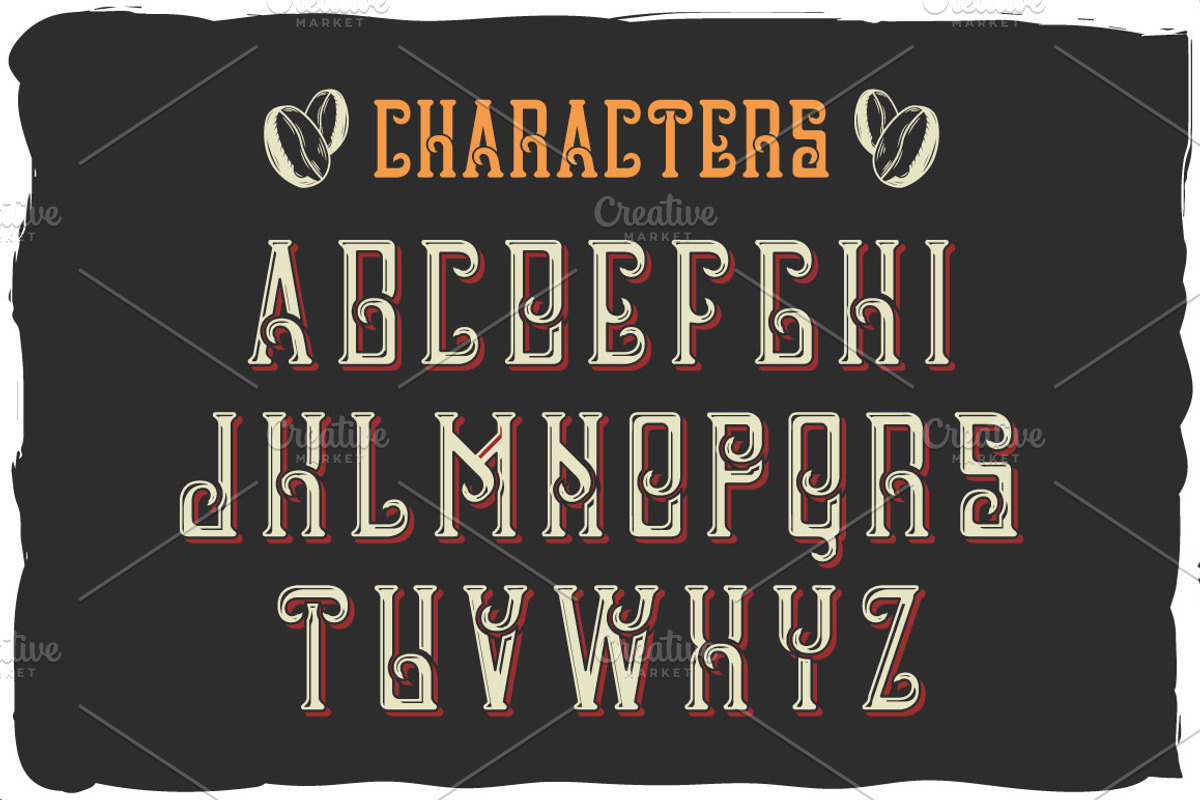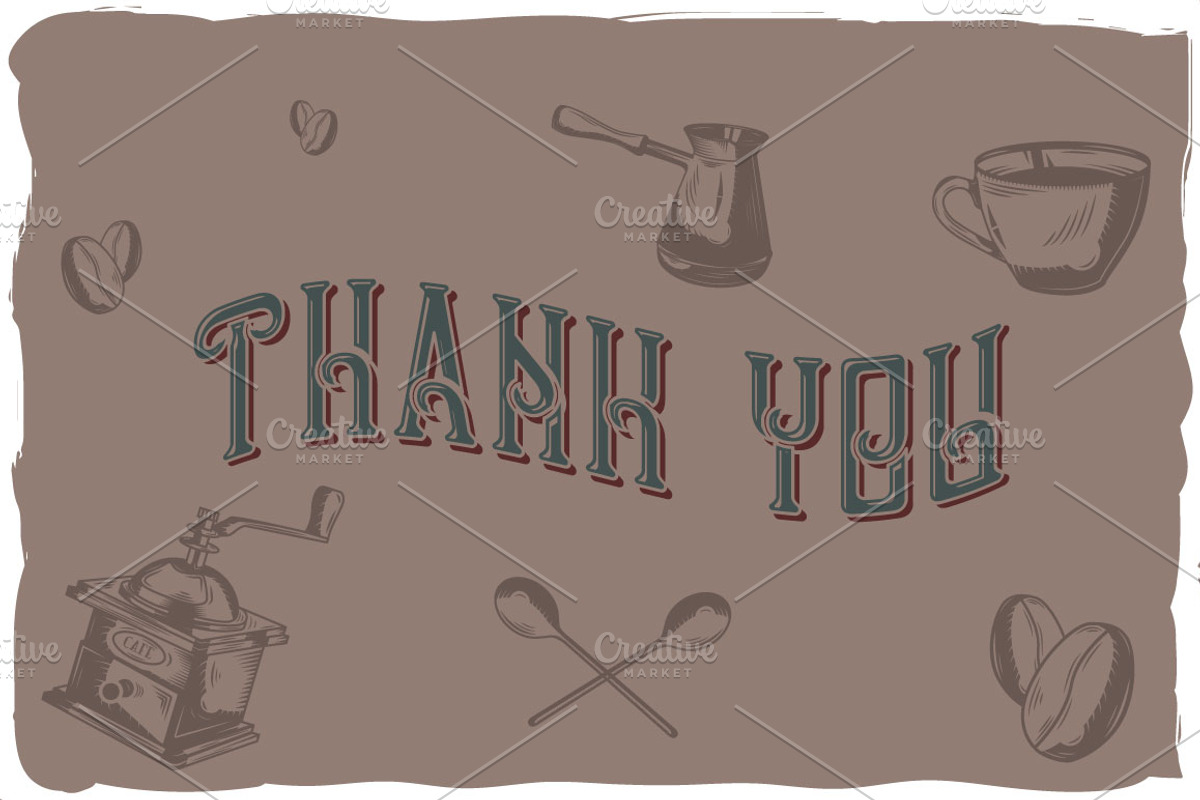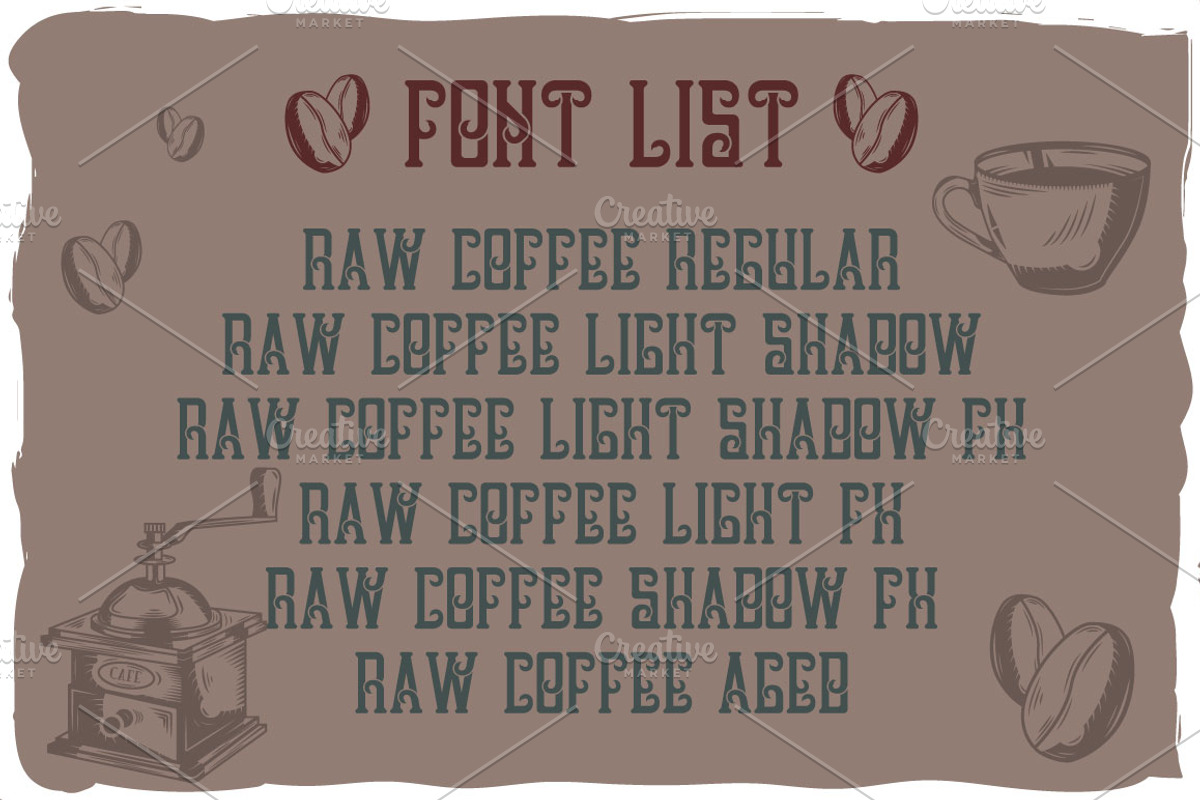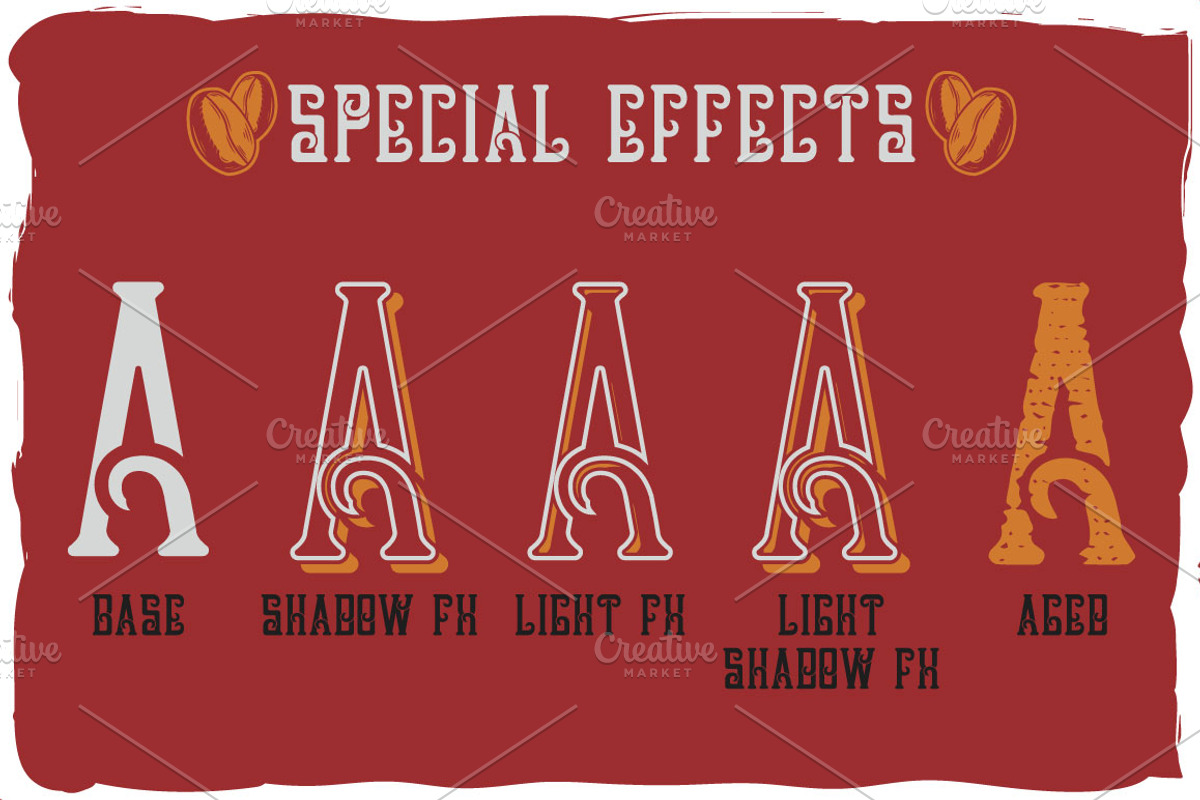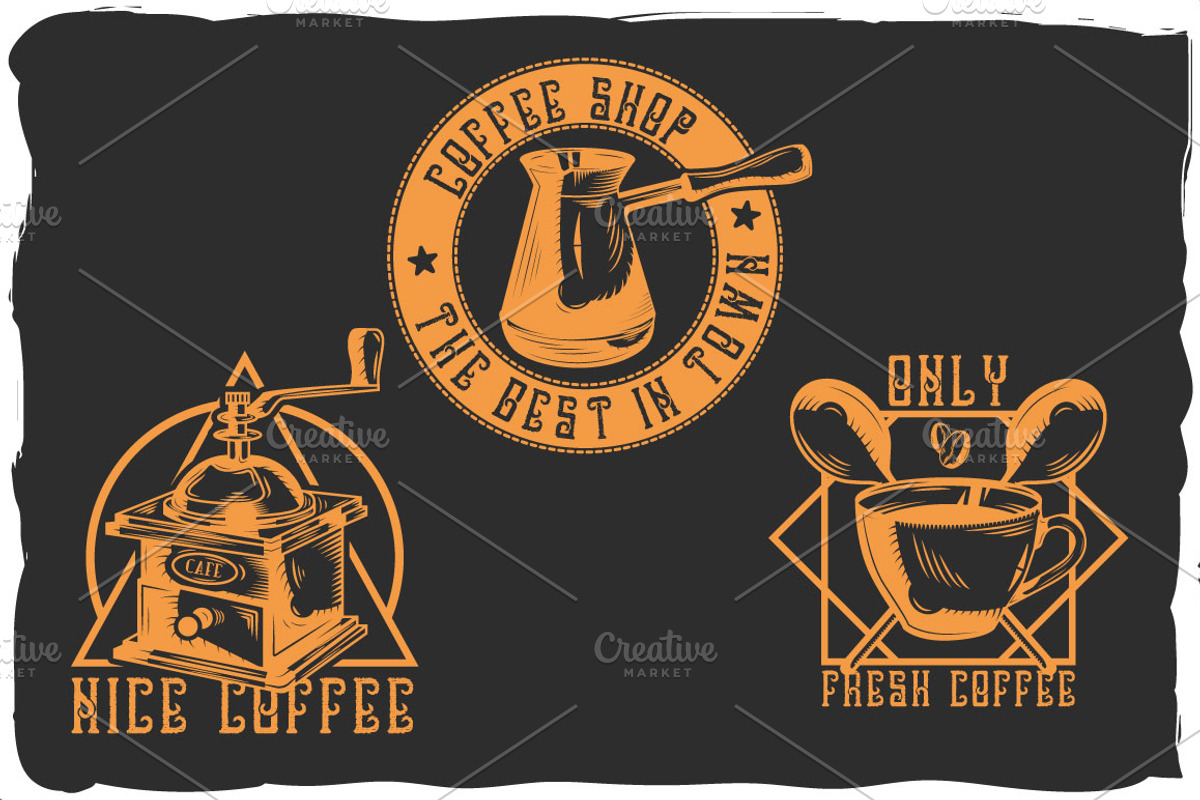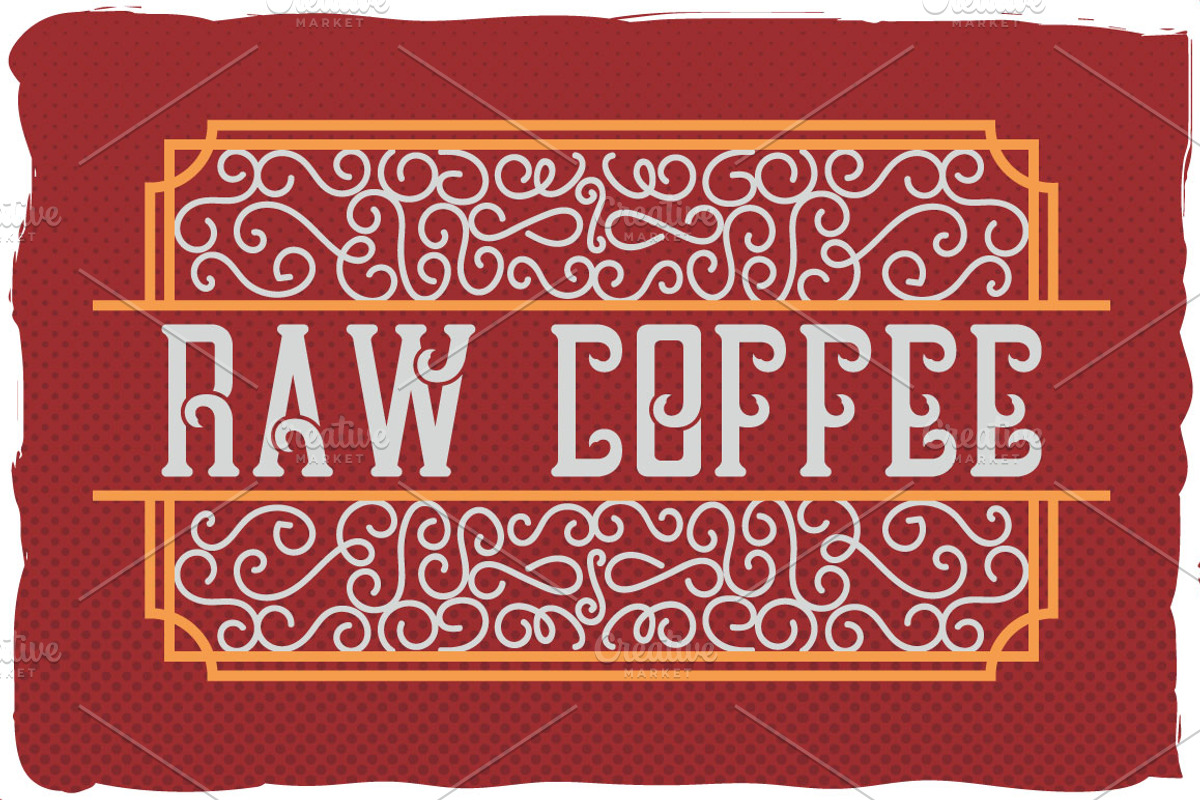
Handcrafted font "Raw Coffee"
Introducing a vintage label typeface called "Raw Coffee" + bonus illustrations. It's made in strong and vintage label style. Typeface looks great on any label designs and t-shirts.
6 fonts in complect with special effects + aged version
You can mix color of base font, light and shadow effect (look at 2nd screenshot)
3 bonus illustrations on t-shirts and other stuff.